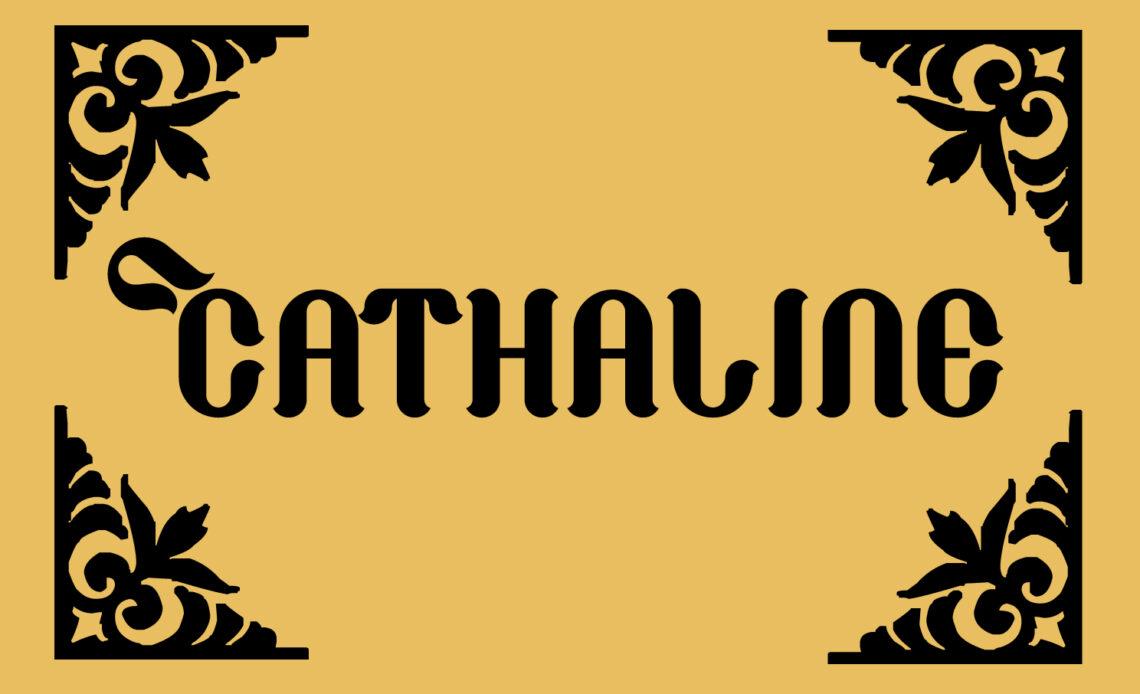
In a world saturated with ordinary fonts, Cathaline Font emerges, a blackletter masterpiece that sparks imagination and elevates designs to new heights. Behold, the medieval typography inspired by Queen Catherine herself. This font is a regal testament to the power of creativity, a font that transforms words into art and elevates concepts into timeless expressions.
Crafted with meticulous attention to detail, Cathaline Font breathes life into bygone eras, where scribes and artisans poured their hearts into every letterform. Its bold strokes, intricate embellishments, and sweeping curves evoke a sense of timeless elegance that captivates and enchants. Embrace the beauty of history with Cathaline Font, a font that transports you to a realm of enchantment.
Whether you're a seasoned designer seeking a touch of distinction or a creative enthusiast yearning for a font that speaks to your soul, Cathaline Font is your muse. Its versatility knows no bounds, harmonizing seamlessly with sans serif and serif fonts alike. Unleash your creativity and let your designs flourish with the timeless charm of Cathaline Font.
Experience the magic of Cathaline Font today and embark on a creative journey like no other. Let your imagination soar, your ideas dance, and your designs shine with the brilliance of this extraordinary blackletter font. It's not just a font; it's a gateway to a world of endless creative possibilities.